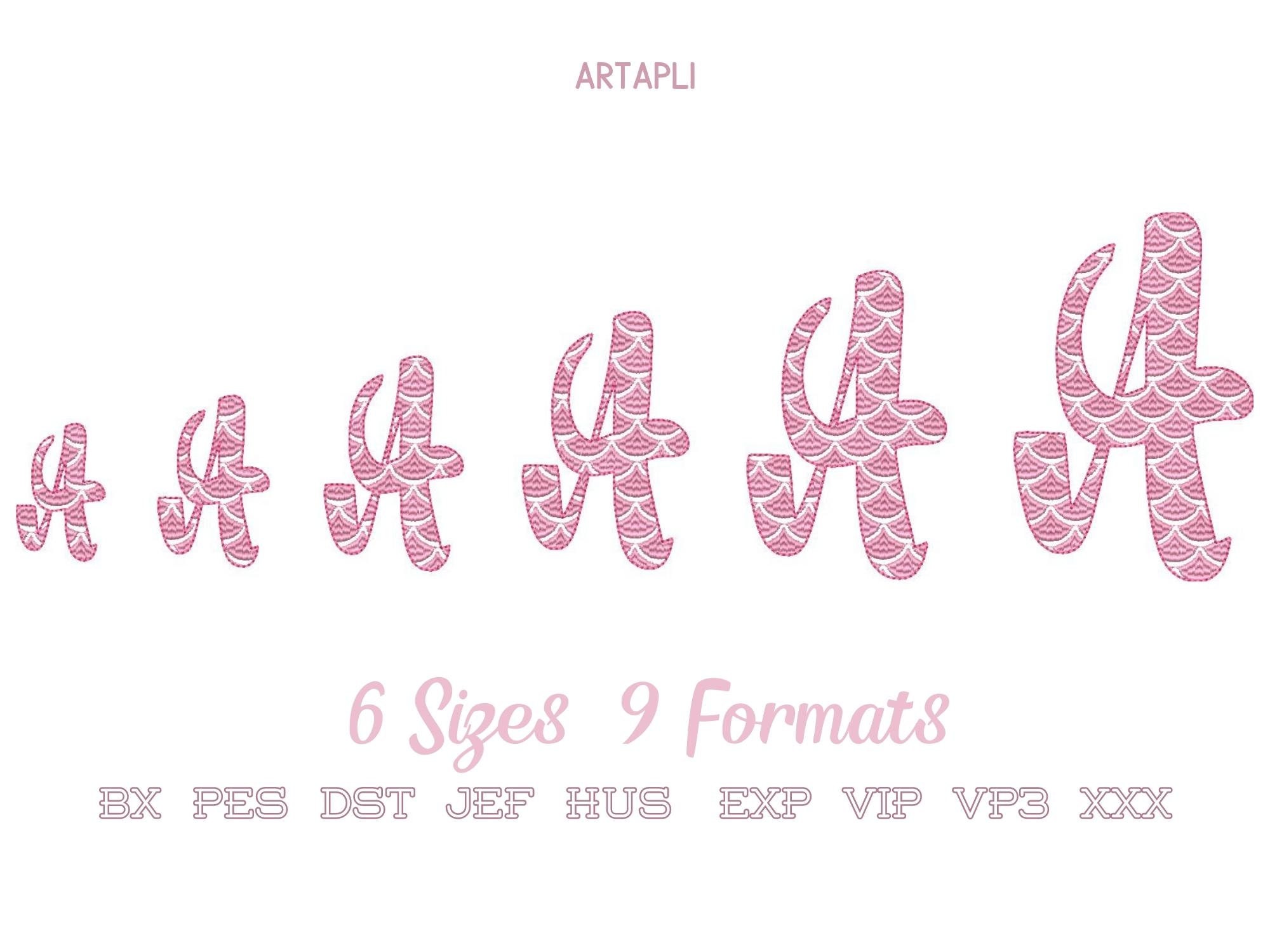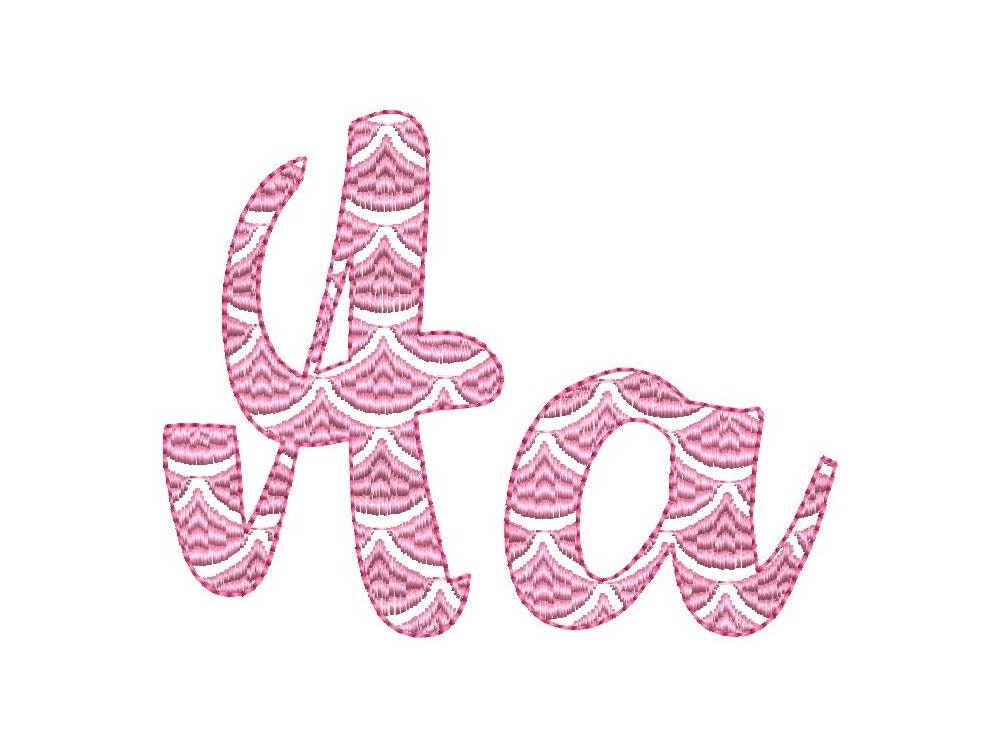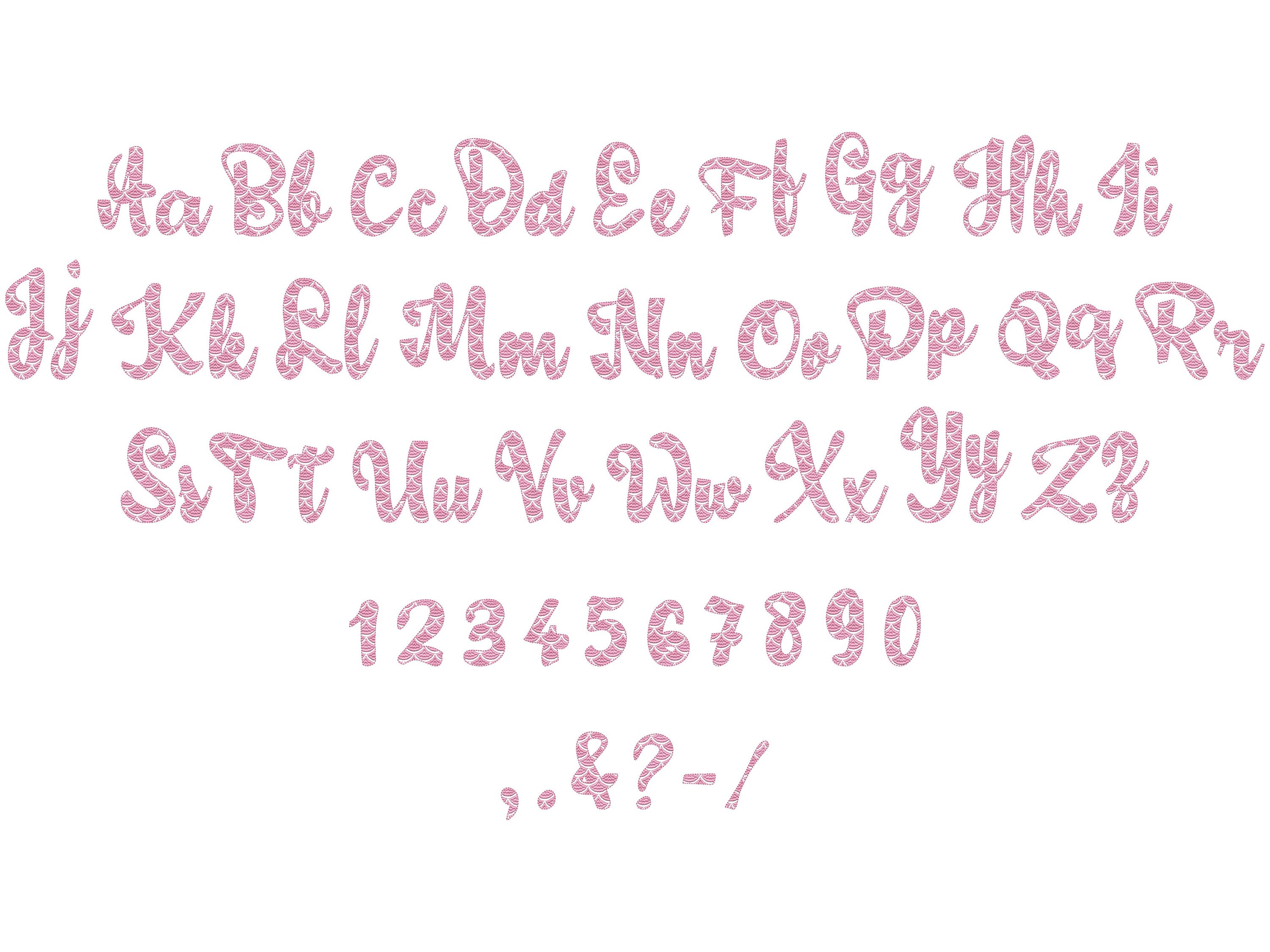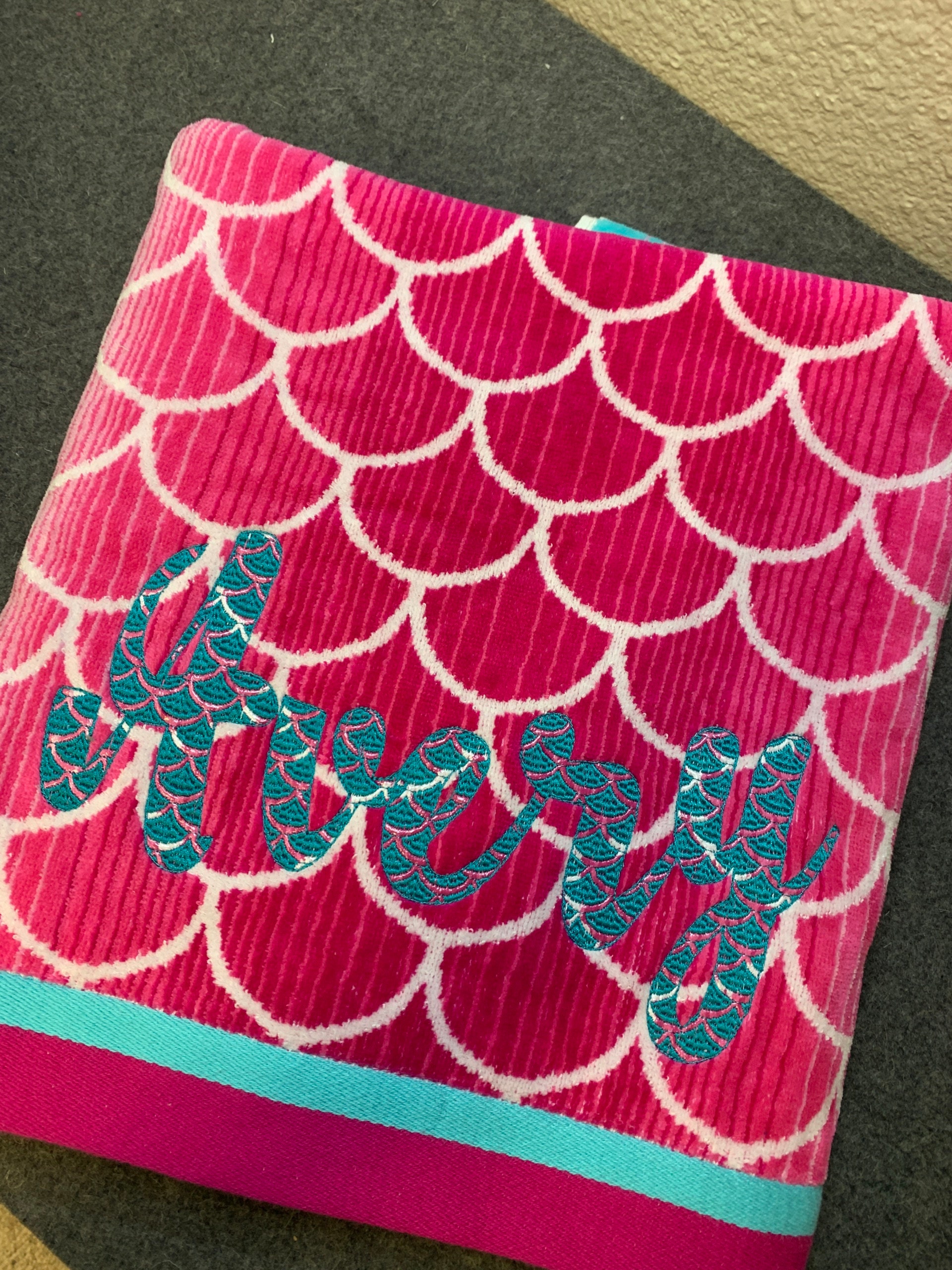
Mermaid Vibes Font 2 two colors script cursive alphabet machine embroidery designs in assorted sizes scalloped letters and numbers kids font
The font is transparent and has fill stitch scallops and a light bean stitch outline.
Included: uppercase and lowercase letters, numbers and punctuation & . , - ? / !